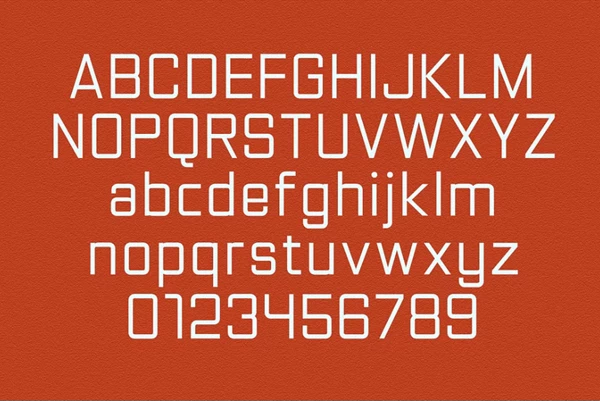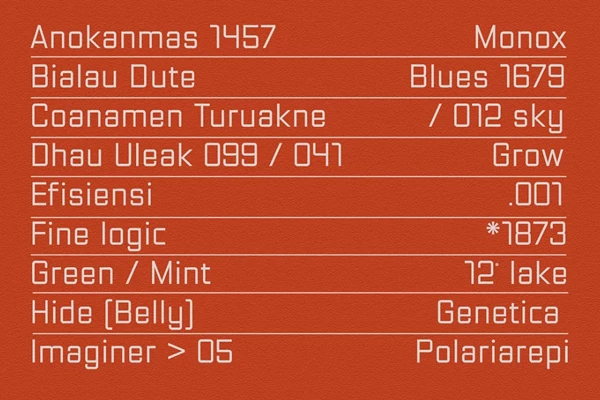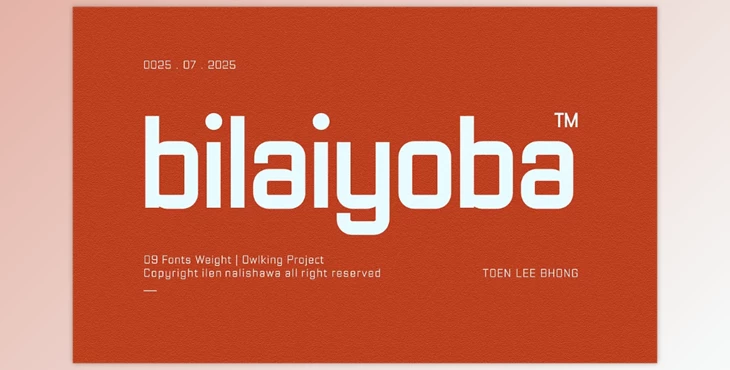
Bilaiyoba Font:
Bilaiyoba is a sans-serif type family that offers a clean, contemporary appearance for all aspects. There are nine styles of the font, from thin to bold, which allow for essential customization. The capital letters are incredibly strong and impactful for short headings and titles. The lowercase letters can also foster strong, impactful short sentences. An excellent accompaniment for large titling in particular, it fosters best in the technology and sports fields for a more elite, industrialized appearance. The font family definitely sounds like something of the future or with a lot of kinetic energy, so I would suggest playing around with it.
- Styles: Thin, Extra Light, Light, Regular, Medium, Semibold, Bold, Extra Bold, Black